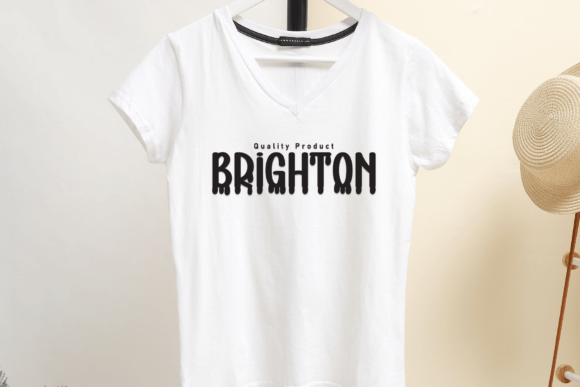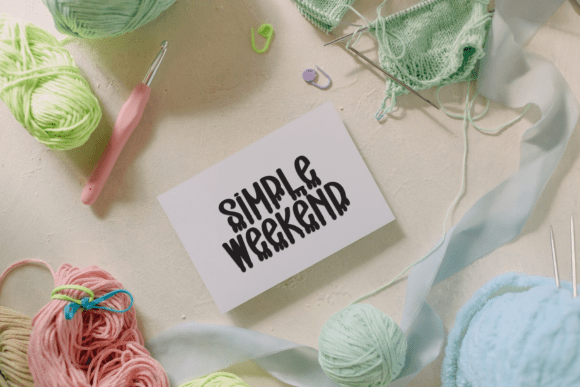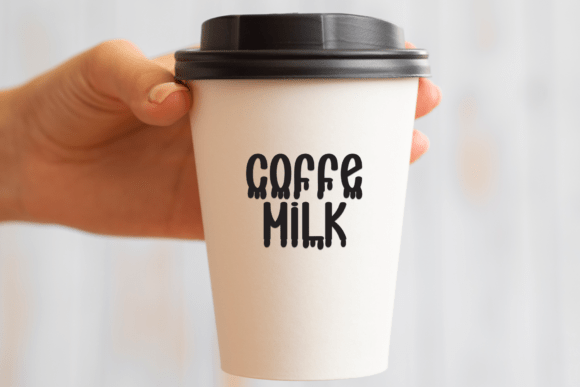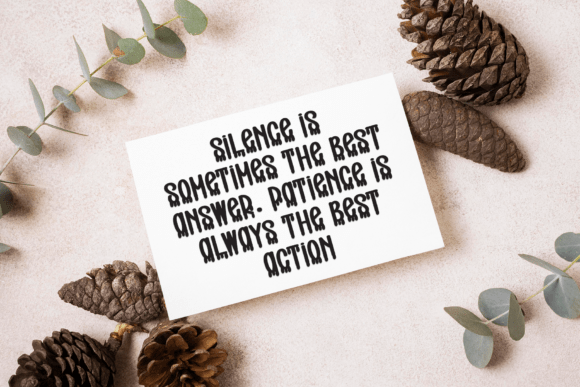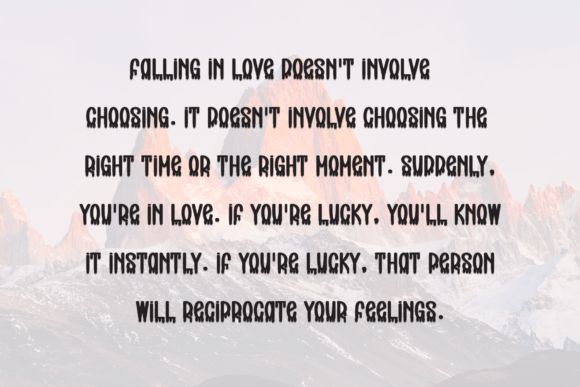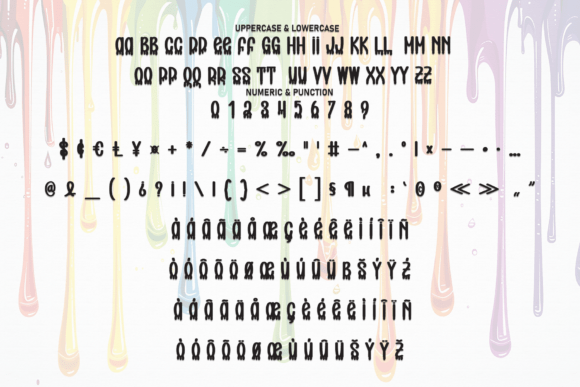
Drips Rainbow Font: Elevate Your Design with a Touch of Modern Handwritten Charm
In the world of typography, fonts play a crucial role in conveying messages, evoking emotions, and creating lasting impressions. For designers and crafters looking for a font that combines simplicity with a friendly, approachable vibe, Drips Rainbow Font is an excellent choice. This casual and neat display font is designed to capture the essence of modern handwritten typography with a polished finish, making it ideal for a wide range of design applications.
Clean Lines, Balanced Letterforms, and Subtle Rounded Edges
One of the standout features of Drips Rainbow Font is its clean lines, balanced letterforms, and subtle rounded edges. These design elements work together to create a font that exudes a sense of modernity and approachability. The clean lines provide a crisp and clear structure, while the balanced letterforms ensure that the text is easy to read and understand. The subtle rounded edges add a touch of warmth and friendliness, making the font perfect for designs that require a personal and inviting feel.
Ideal for Branding, Headlines, Packaging, and Digital Content
Drips Rainbow Font is a versatile font that can be used in a variety of design applications. Its modern handwritten style makes it perfect for branding, headlines, packaging, and digital content. For designers looking to create a strong brand identity, this font can be used to create eye-catching logos, business cards, and letterheads. For digital content creators, Drips Rainbow Font can be used to add a touch of personality to blog posts, social media graphics, and website headers.
Adding a Warm and Inviting Touch to Any Design
One of the key benefits of using Drips Rainbow Font is its ability to add a warm and inviting touch to any design. The font’s friendly and approachable vibe makes it perfect for designs that require a personal and human touch. Whether you’re creating a design for a children’s book, a food blog, or a fashion brand, Drips Rainbow Font can help you connect with your audience and create a lasting impression.
Crispy Structure and Versatile Style
Drips Rainbow Font delivers clarity and charm in equal measure, thanks to its crispy structure and versatile style. The font’s clean lines and balanced letterforms provide a clear and easy-to-read structure, while its subtle rounded edges add a touch of warmth and personality. This font is perfect for designers who want to create designs that are both functional and visually appealing.
Drips Rainbow Font is a perfect choice for designers and crafters who want to add a touch of modern handwritten charm to their designs. The font’s versatility and ease of use make it perfect for a wide range of design applications, from branding and packaging to digital content and craft projects. With Drips Rainbow Font, designers and crafters can create designs that are both visually appealing and effective in communicating their message.
Key Features of Drips Rainbow Font
- Clean lines and balanced letterforms for clear and easy-to-read text
- Subtle rounded edges for a warm and inviting feel
- Ideal for branding, headlines, packaging, and digital content
- Versatile style that can be used in a wide range of design applications
- Crispy structure that delivers clarity and charm in equal measure
In conclusion, Drips Rainbow Font is a modern handwritten font that combines simplicity with a friendly, approachable vibe. Its clean lines, balanced letterforms, and subtle rounded edges make it perfect for designs that require a personal and inviting feel. With its versatility and ease of use, Drips Rainbow Font is a perfect choice for designers and crafters who want to add a touch of modern handwritten charm to their designs.
Whether you’re creating a design for a brand, a digital content project, or a craft project, Drips Rainbow Font is a great choice. Its ability to add a warm and inviting touch to any design makes it a valuable addition to any designer’s or crafter’s toolkit. So why not give Drips Rainbow Font a try and see how it can elevate your designs to the next level?